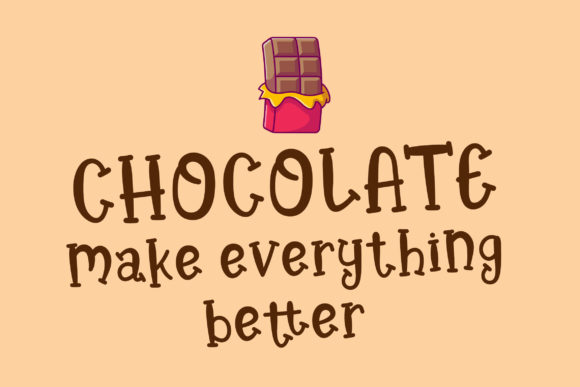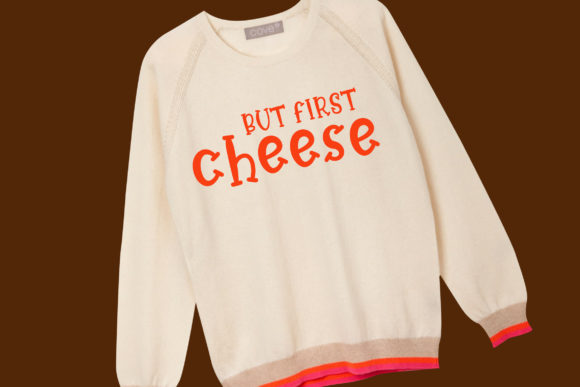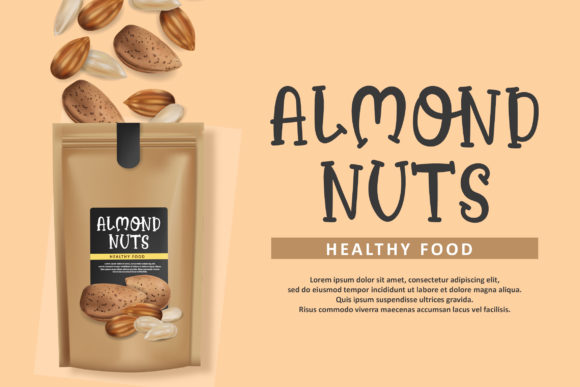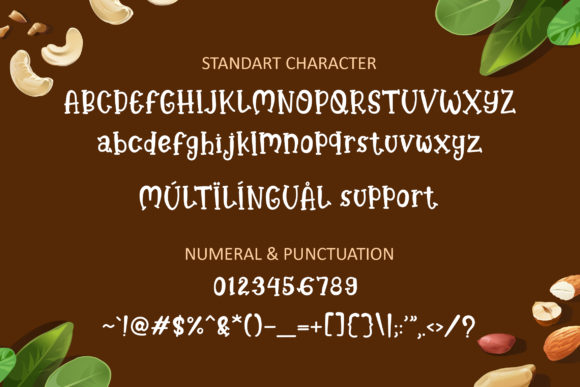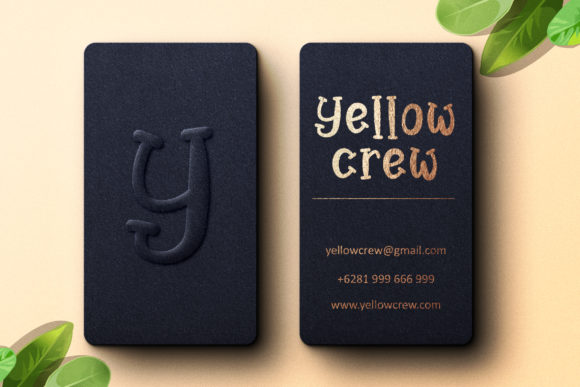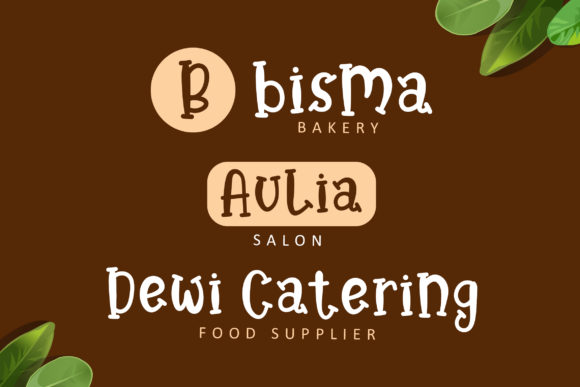
Discover the Joy of Brown Peanut Font
Who hasn’t been inspired by a child’s scribble on a notebook or a colorful poster created for a classroom project? There’s something endearing about the unbridled creativity that comes with childhood. As designers, we often strive to recapture that sense of playfulness in our work, and sometimes, it’s the smallest details that make the biggest impact.
Enter the Brown Peanut Font, a delightful display font that embodies the spirit of childhood wonder. This charming font is designed to bring a smile to your face, making it the perfect choice for children’s activities, school projects, and any other creative endeavor that calls for a touch of whimsy. With its vibrant colors and playful feel, the Brown Peanut Font is a valuable addition to any designer’s toolkit, offering a unique way to add personality and authenticity to your designs.
Brown Peanut Font Key Features
- Character Set: This font includes a comprehensive set of characters, including uppercase and lowercase letters, numerals, punctuation marks, and special characters, making it suitable for a variety of applications.
- Unique Characteristics: Brown Peanut Font features a unique blend of modern and vintage elements, with distinctive rounded shapes and subtle texture, giving it a warm and inviting feel.
- Font Weight and Style: Brown Peanut Font comes in multiple font weights, from Light to Bold, and various styles, including Regular, Italic, and Bold Italic, providing flexibility for designers and typographers.
Brown Peanut Font Review
Overall, I think the Brown Peanut Font is a charming and playful font that can add a nice touch to various design projects. ✨
- Unique aesthetic: The font has a distinctive, quirky feel that can help brands stand out.
- Good legibility: The characters are clear and easy to read, even at smaller font sizes.
- Customization options: The font is available in a range of weights and styles, allowing designers to tailor the look to their needs.
However, I do have some concerns about the font’s limitations. ⚠️
- Limited language support: The font may not include the full range of characters and glyphs needed for certain languages.
- Not ideal for body text: The font’s playful nature makes it more suited for headings and titles, rather than large blocks of body text.
- Potential for overuse: The font’s distinctive look may become overwhelming if used too extensively.
Overall, I think the Brown Peanut Font is a great choice for designers looking to add some personality to their work. While it may not be suitable for every project, it’s a versatile and engaging font that can add a lot of value to the right design.
The Brown Peanut Font is ideal for creating unique and playful designs. Use it for:
For optimal results, use the Brown Peanut Font in conjunction with bold, playful colors and creative illustrations.